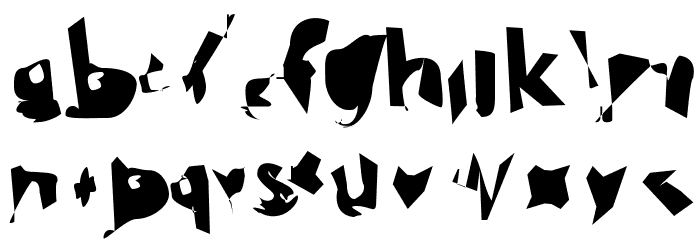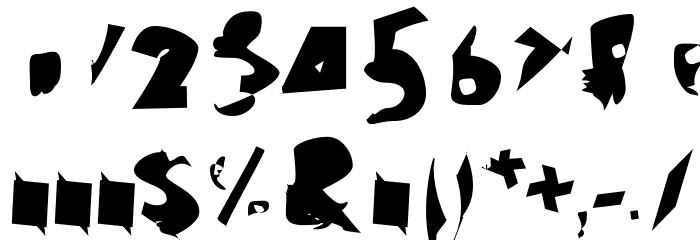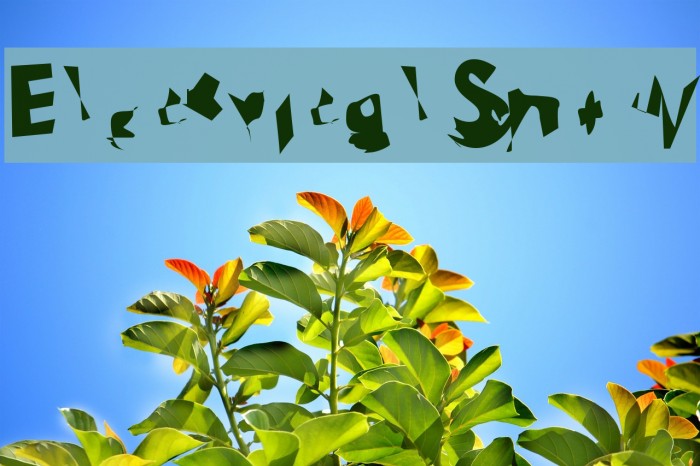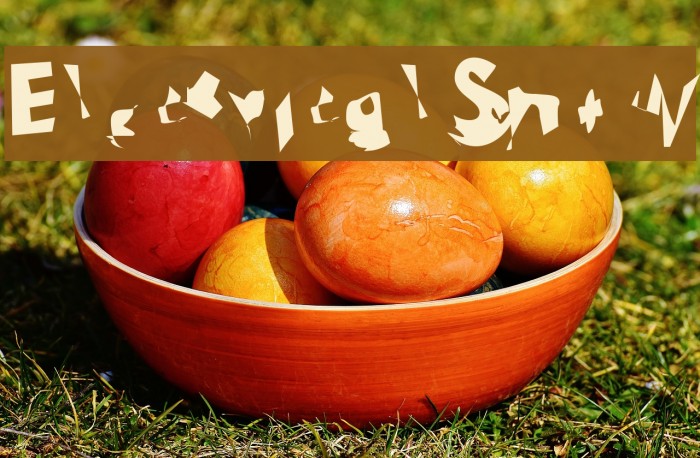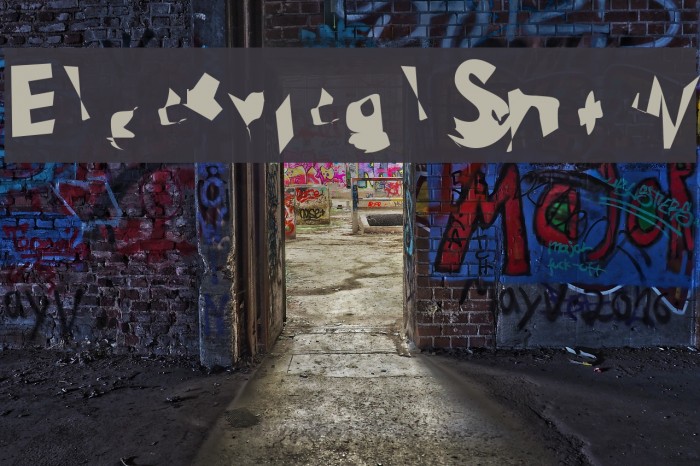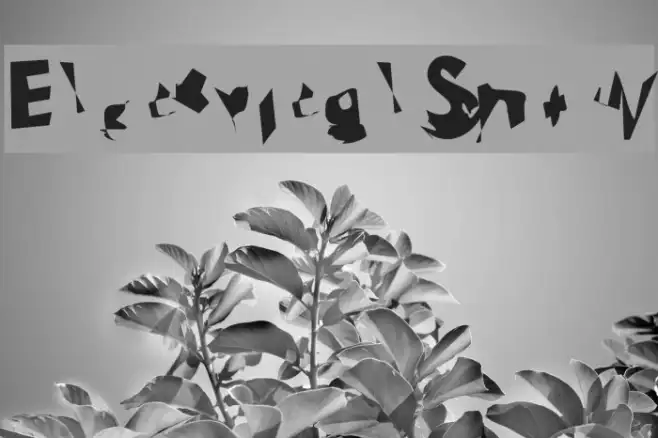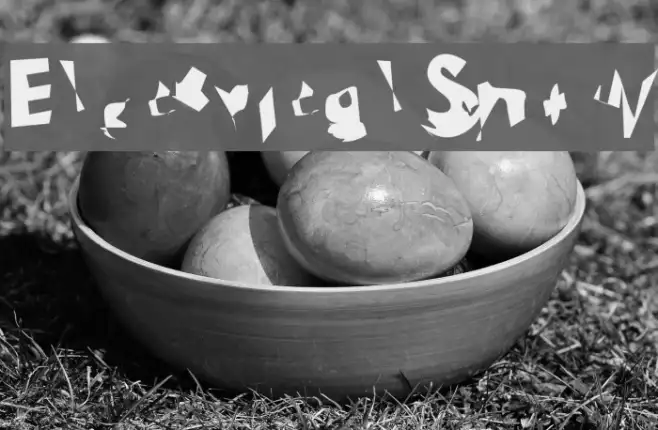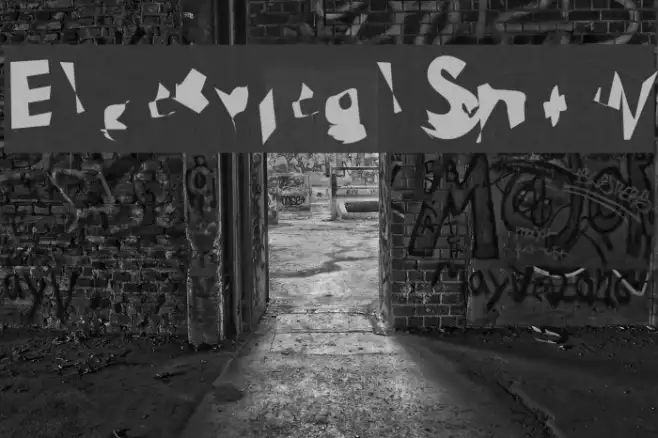
Electrical Snow Font
This font features a highly abstract and fragmented design, with characters appearing as if they are shattered or distorted. The uppercase and lowercase letters, as well as numbers and special characters, maintain a consistent theme of jagged edges and irregular shapes, creating a chaotic yet artistic appearance. The style is bold and eye-catching, making it suitable for projects that require a strong visual impact. The characters are not uniform, with varying widths and angles, contributing to its unique and unconventional look.
A bold, abstract font with fragmented, jagged characters.
- Proposed Projects: Ideal for album covers, poster designs, or any creative project needing a striking, unconventional typeface.
- Overall Style: Modern, Abstract
- Use Case: Logos, Headlines, Artistic projects